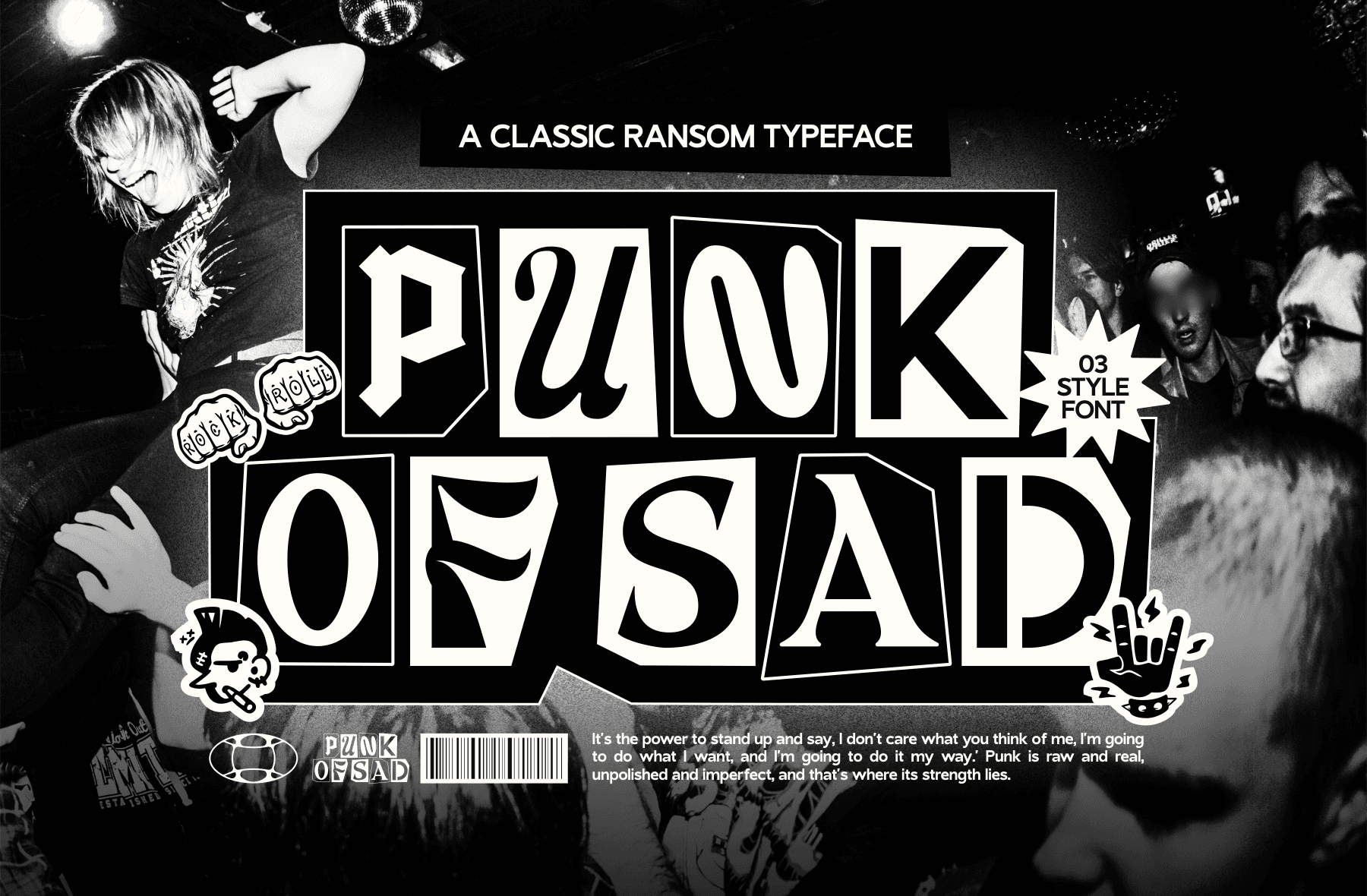
Discover the Gritty Charm of Punk of Sad: A Typeface That Speaks Volumes In the vibrant world of design where trends often come and go, certain typefaces stand out for their ability to convey deep narratives with just a few bold strokes. Punk of Sad ...